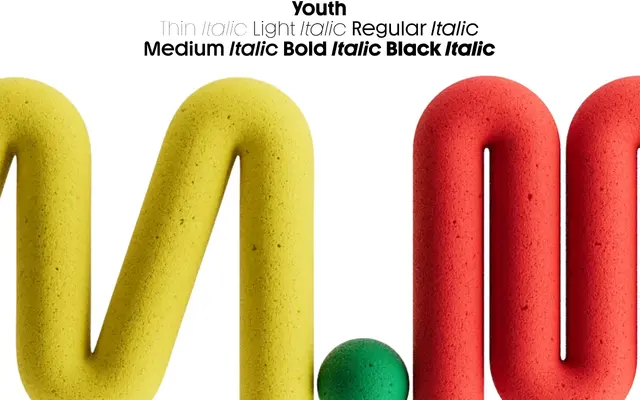
Youth specimen from AllCaps
A geometric sans drawn from the Bauhaus-inflected phototypesetting grotesques of the late 1960s and 70s, reworked with rounded corners, a high x-height and multiple stylistic alternates.
Taking cues from Herbert Bayer's Universalschrift and the Letraset-era work of designers such as Herb Lubalin and David L Burke, Youth reimagines that distinctive genre with optically corrected curves and dynamic rounded terminals rather than strict modularity. Six weights run from Thin to Black with matching italics, and an extensive OpenType feature set includes lightweight contrasting diacritics, contextual alternates and both kinetic and geometric alternate characters. The result suits headline and branding work where a recognisably Bauhaus flavour is wanted without the rigidity of its historical sources.
Youth draws directly from the Bauhaus-inflected phototypesetting grotesques of the late 1960s and 70s, tracing back to Herbert Bayer's Universalschrift forms. Its high x-height, rounded corners and optically corrected curves place it firmly in the geometric sans tradition.